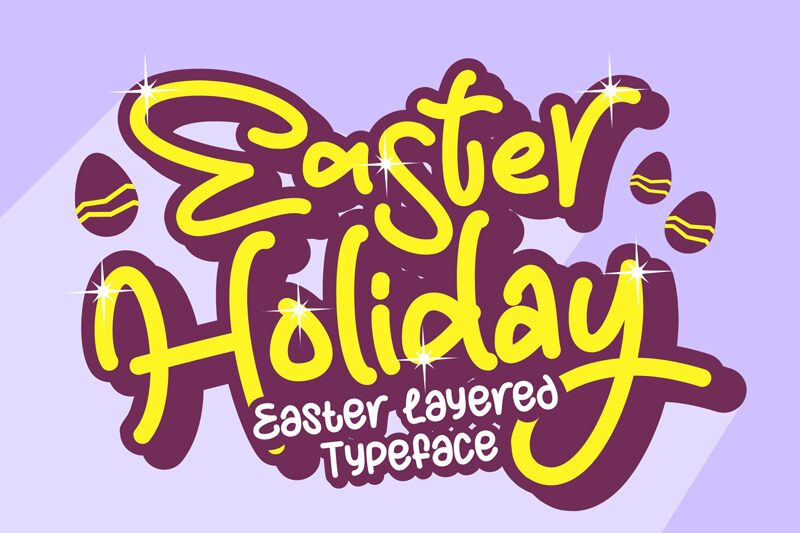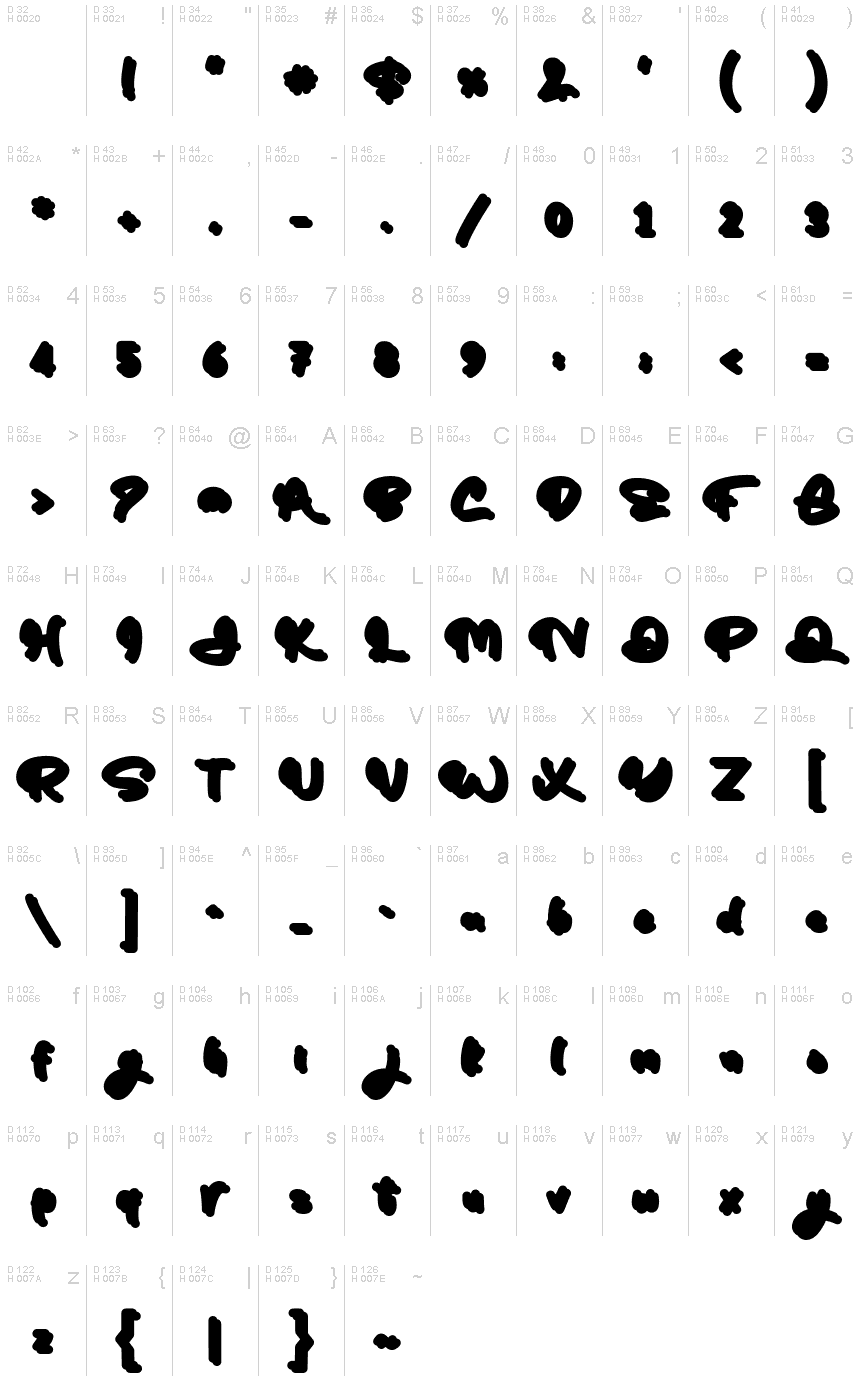
Easter Holiday Shadow
Easter Holiday Shadow, designed by Mabhal Studio, is a bold and semi-expanded font that adds a touch of playfulness to any project.
With its handwritten style and Easter layered design, this font is perfect for creating eye-catching Easter-themed graphics, invitations, and greeting cards. Its unique shadow effect adds depth and dimension to the text, making it suitable for digital designs as well as print materials. Whether you're designing an Easter-themed website or creating festive marketing materials, Easter Holiday Shadow will bring a whimsical charm to your projects.